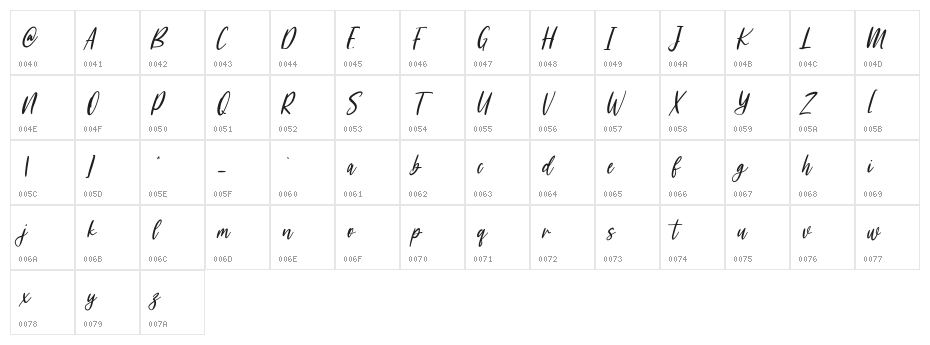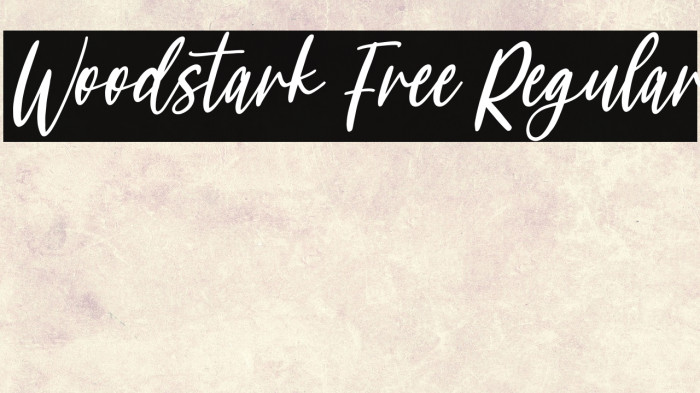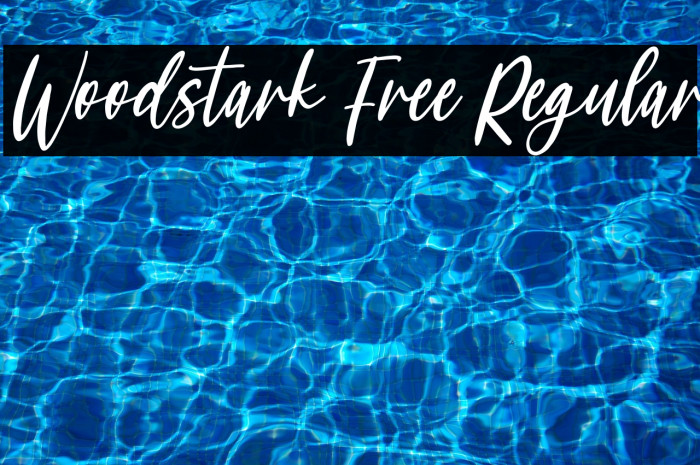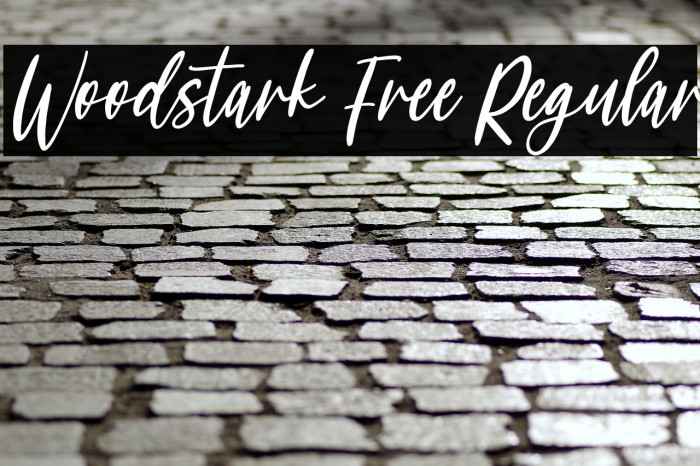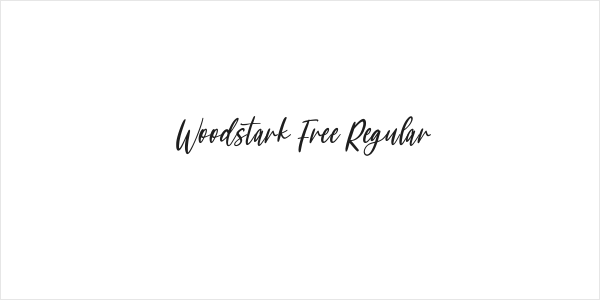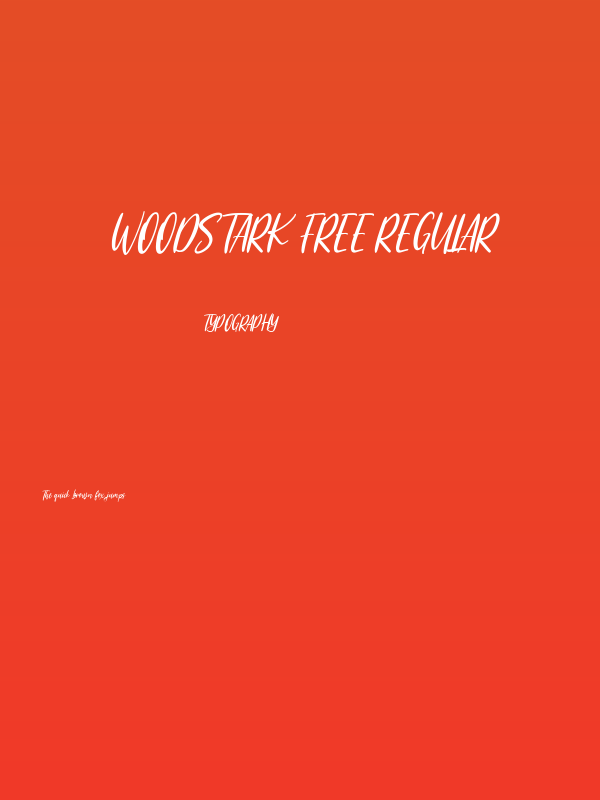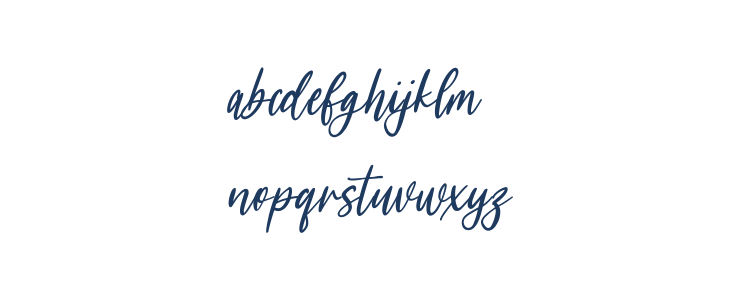
Woodstark Free Regular Font
Woodstark Free Regular Description
This font features a dynamic and flowing script style, characterized by its elegant and fluid letterforms. The uppercase letters are bold and expressive, with sweeping curves and a slight slant that adds a sense of movement. The lowercase letters maintain a consistent style, with smooth connections between characters, enhancing the overall cohesiveness. The font's design is reminiscent of modern calligraphy, offering a personal and artistic touch. The strokes vary in thickness, providing a medium contrast that adds depth and interest to the text. This font is both stylish and versatile, making it suitable for a variety of creative applications.
Use CaseLogos, Headlines, Invitations
Proposed ProjectsIdeal for wedding invitations, branding, social media graphics, and personal stationery.